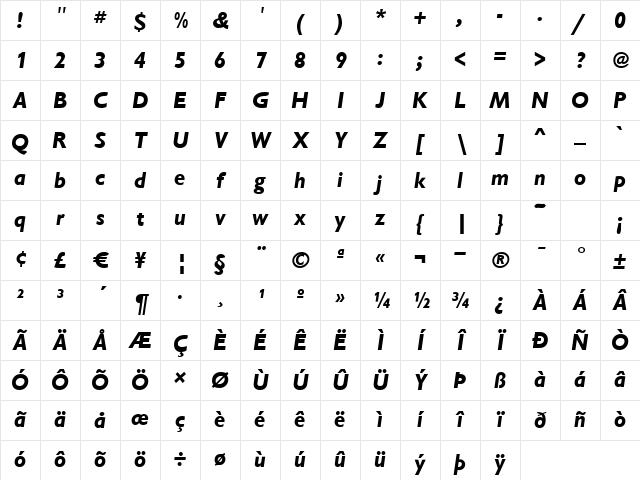
Chantilly BoldItalic
Design Context for Chantilly
Chantilly is a composed and adaptable typeface that performs quietly and consistently across a wide range of design contexts. The slanted form adds forward momentum and visual energy. Its bold stroke weight gives it real presence on the page.
Pro Tip: Use Chantilly for emphasis, pull quotes, and subheadings where its slanted energy can add rhythm to the layout.